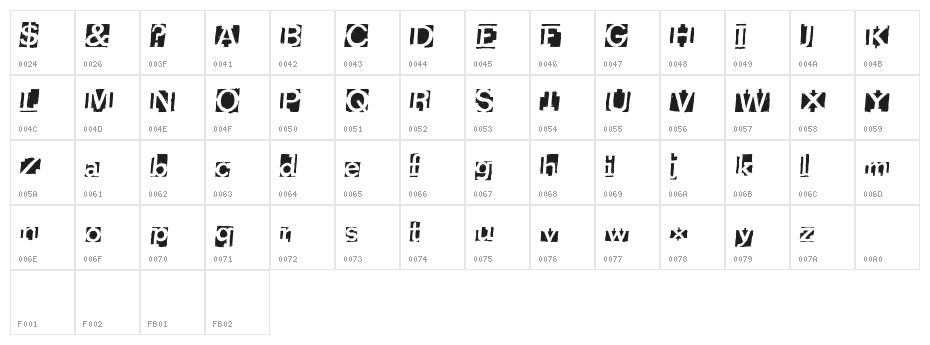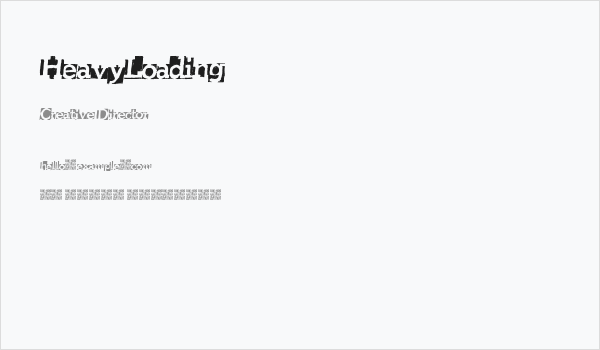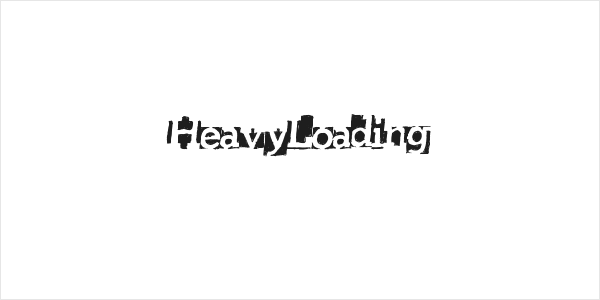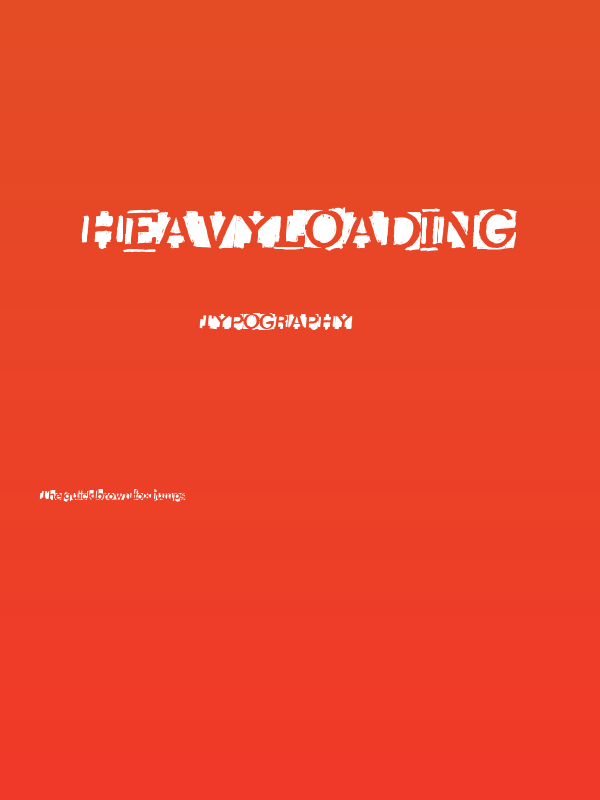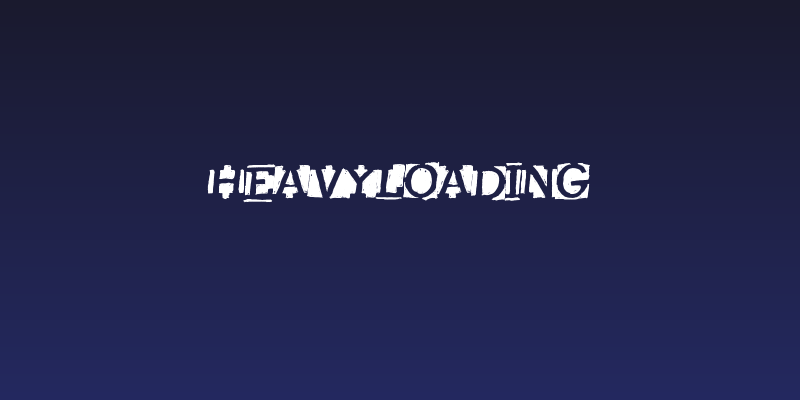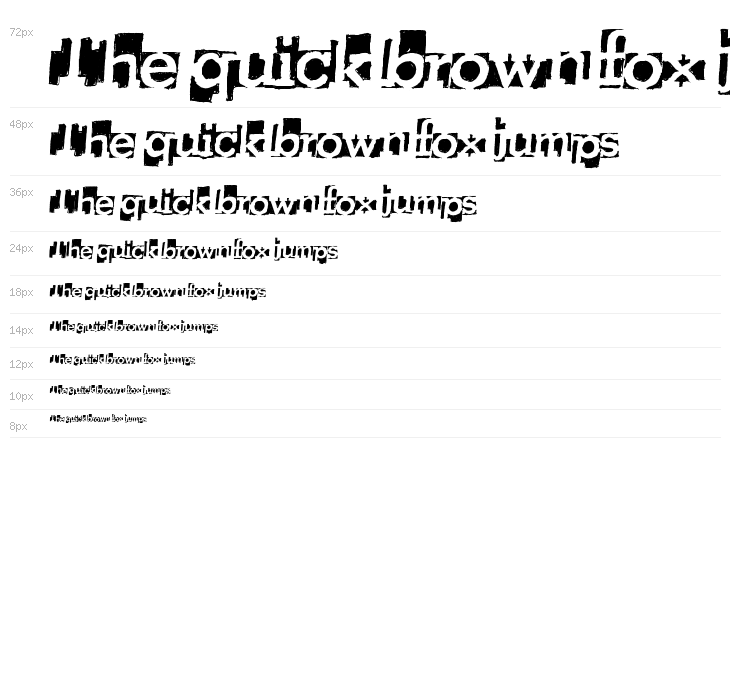
HeavyLoading Font
HeavyLoading Description
This font features a bold and distressed style, characterized by its rough, textured appearance. The letters are heavily stylized with uneven edges and a grunge aesthetic, giving it a unique and edgy look. The uppercase and lowercase letters maintain a consistent design theme, with each character appearing as if it has been stamped or printed with a worn-out effect. The numerals and special characters follow the same design principles, ensuring a cohesive appearance across all elements. This font is ideal for projects that require a strong, impactful visual statement.
| Overall Style | Grunge, Edgy |
| Use Case | Headlines, Posters, Branding |
| Proposed Projects | Ideal for album covers, posters, urban-themed designs, and branding that requires a strong, edgy impact. |